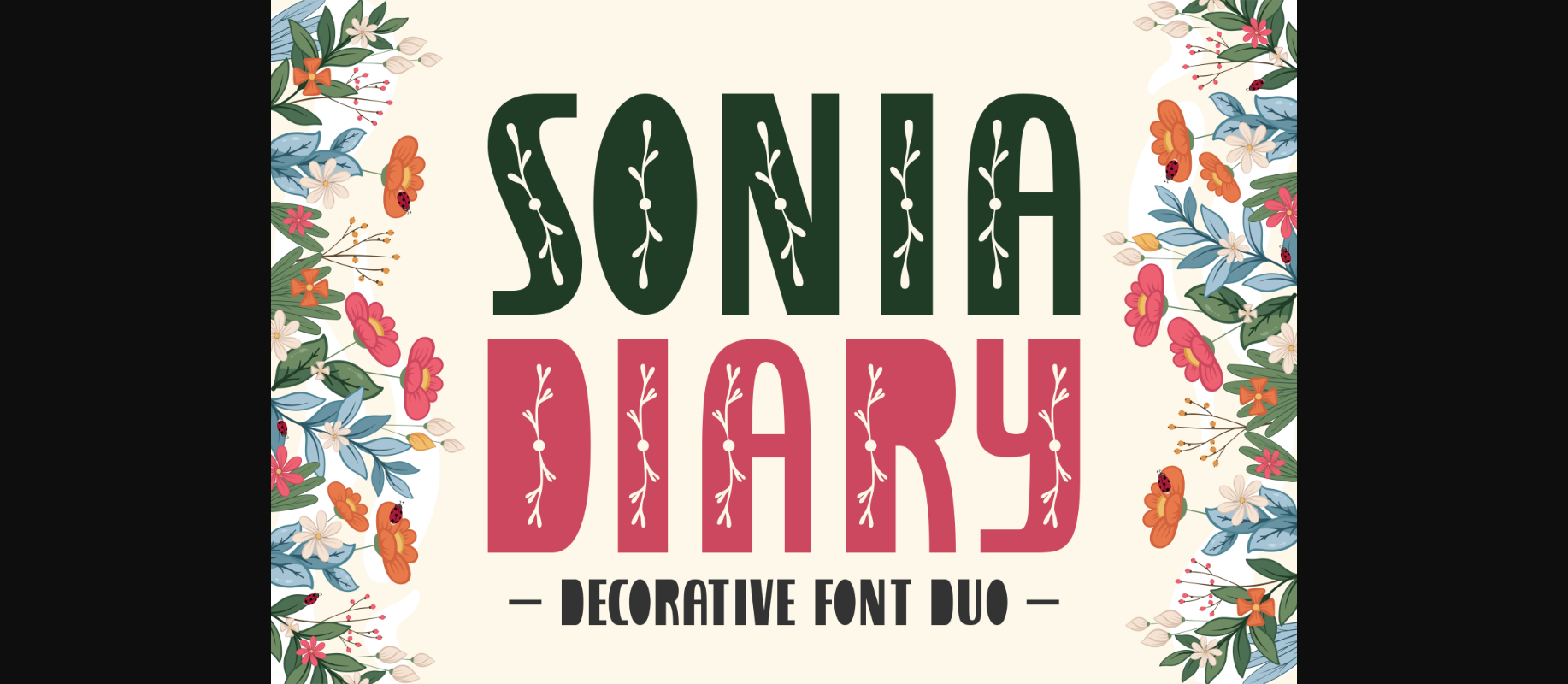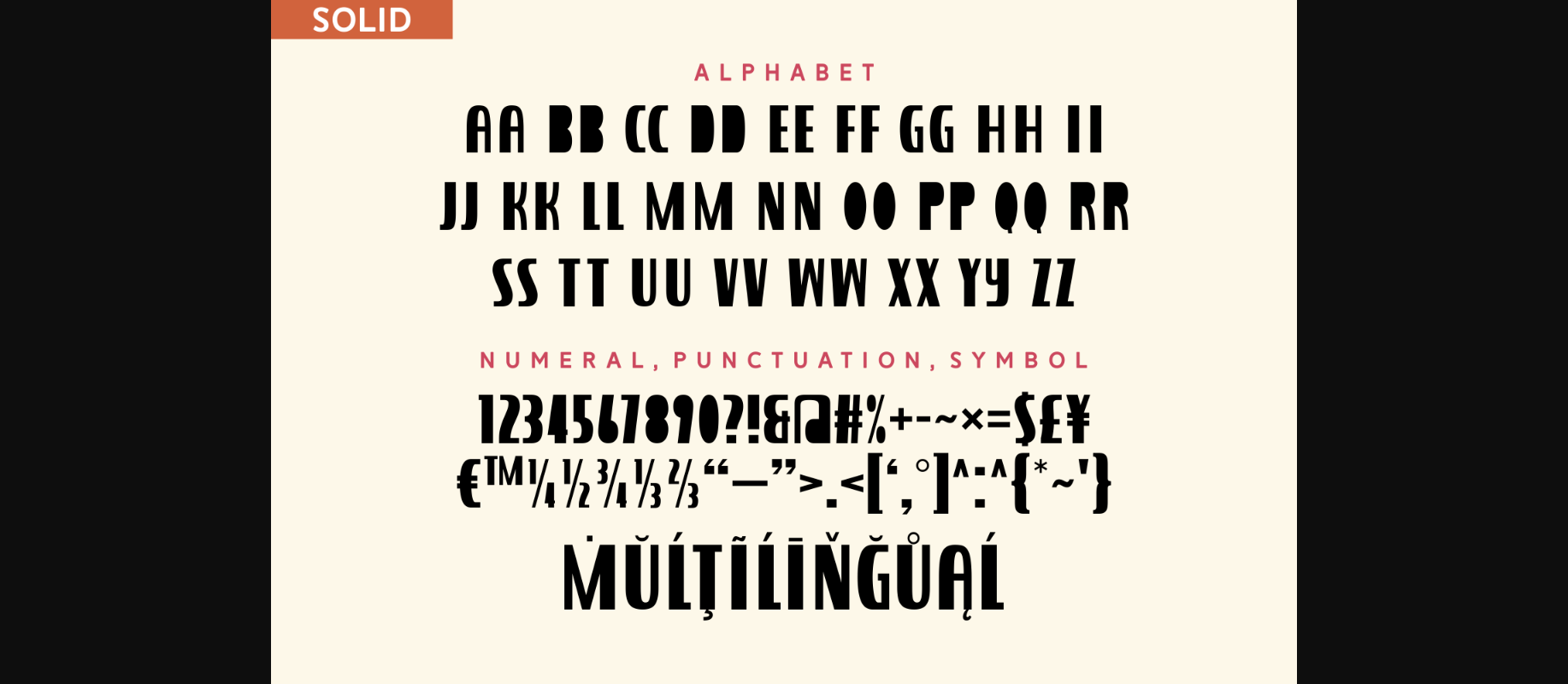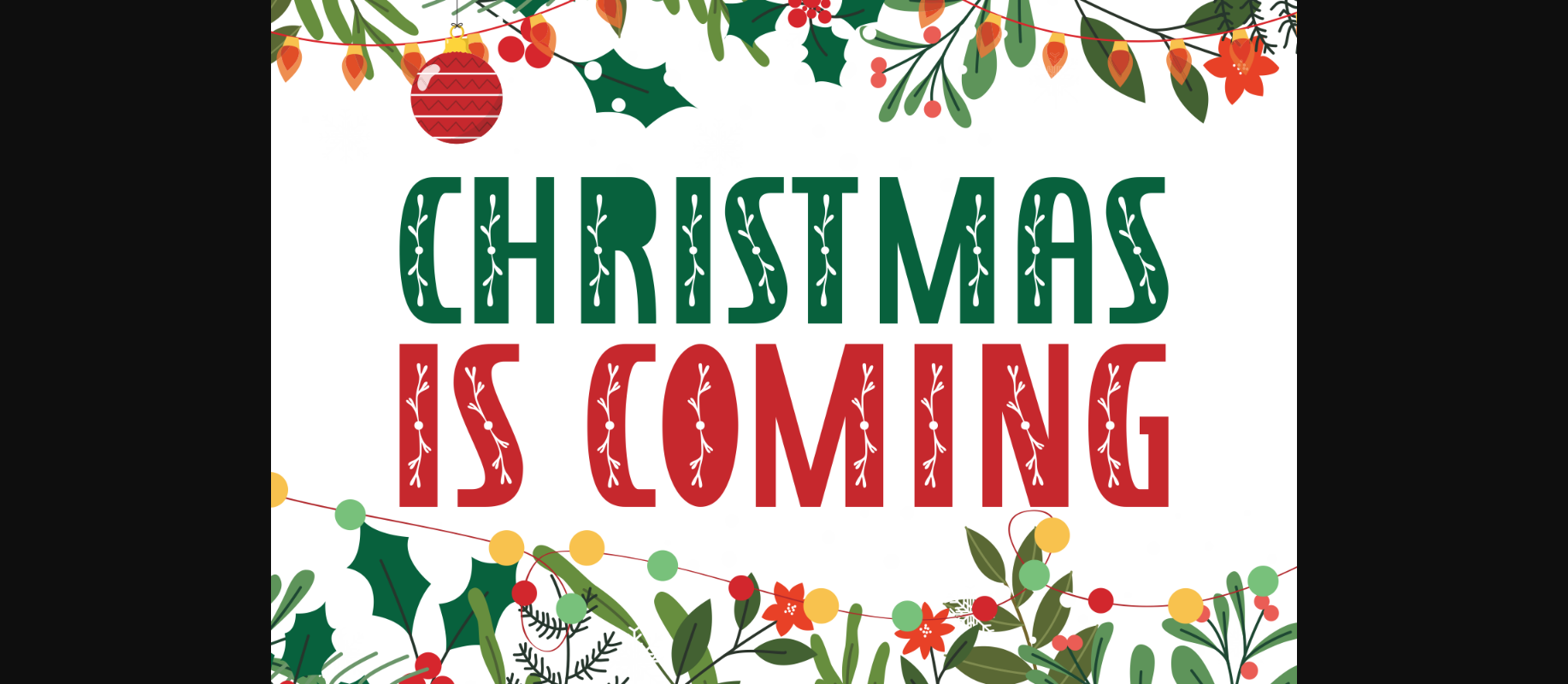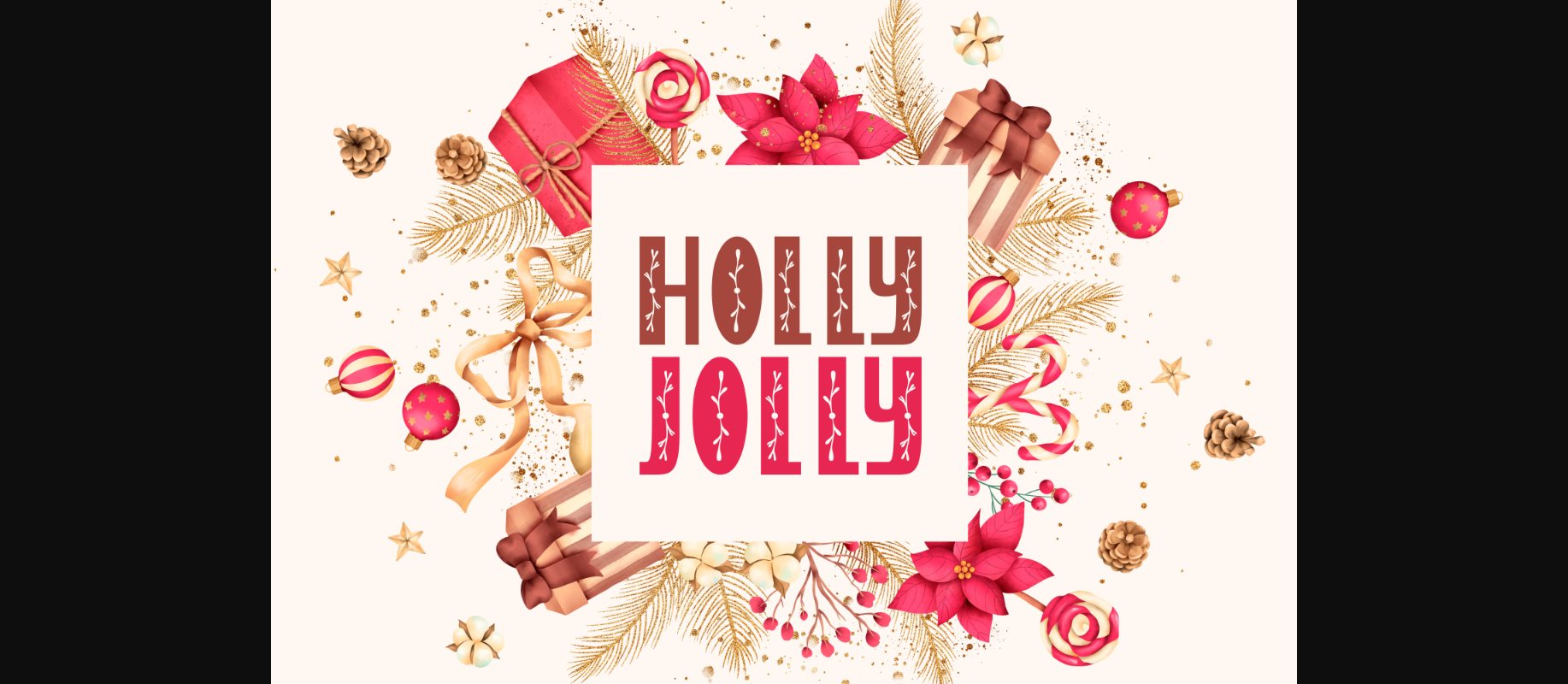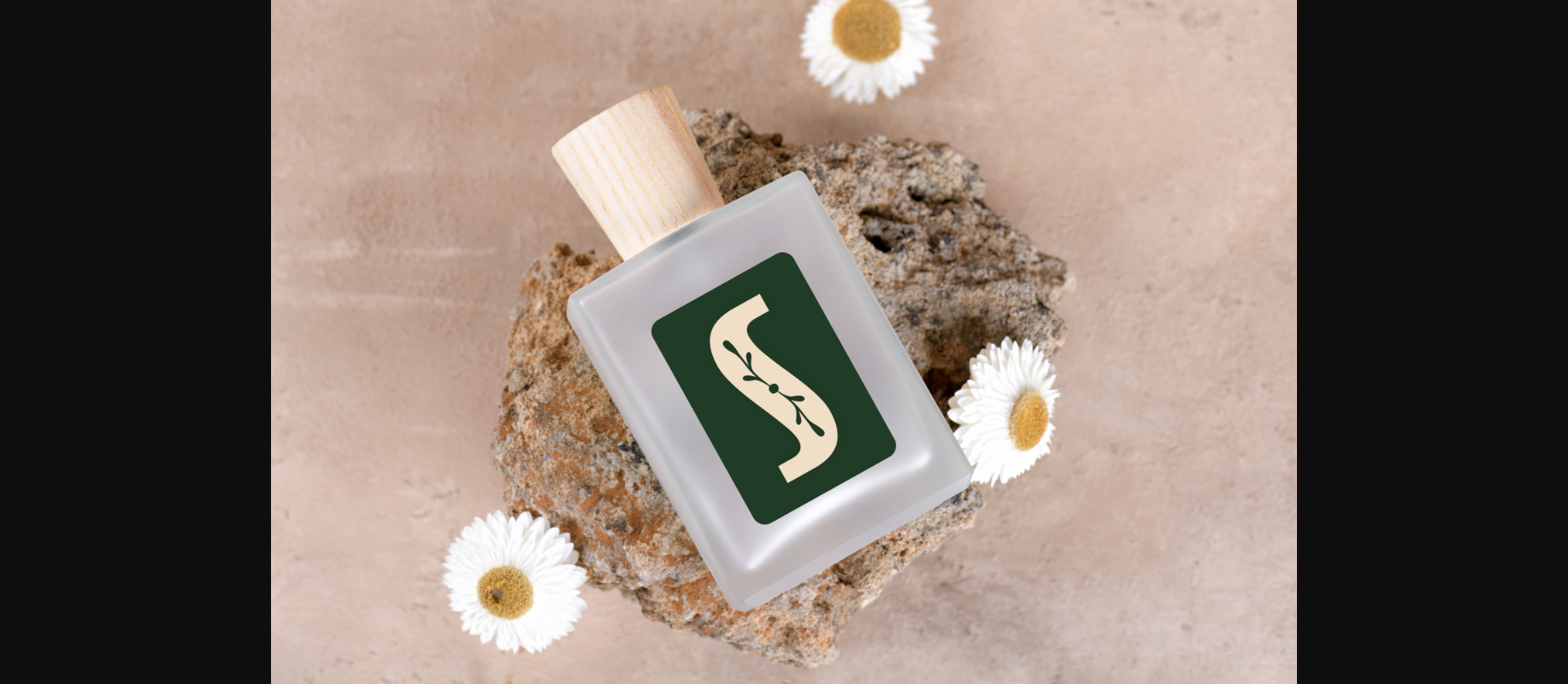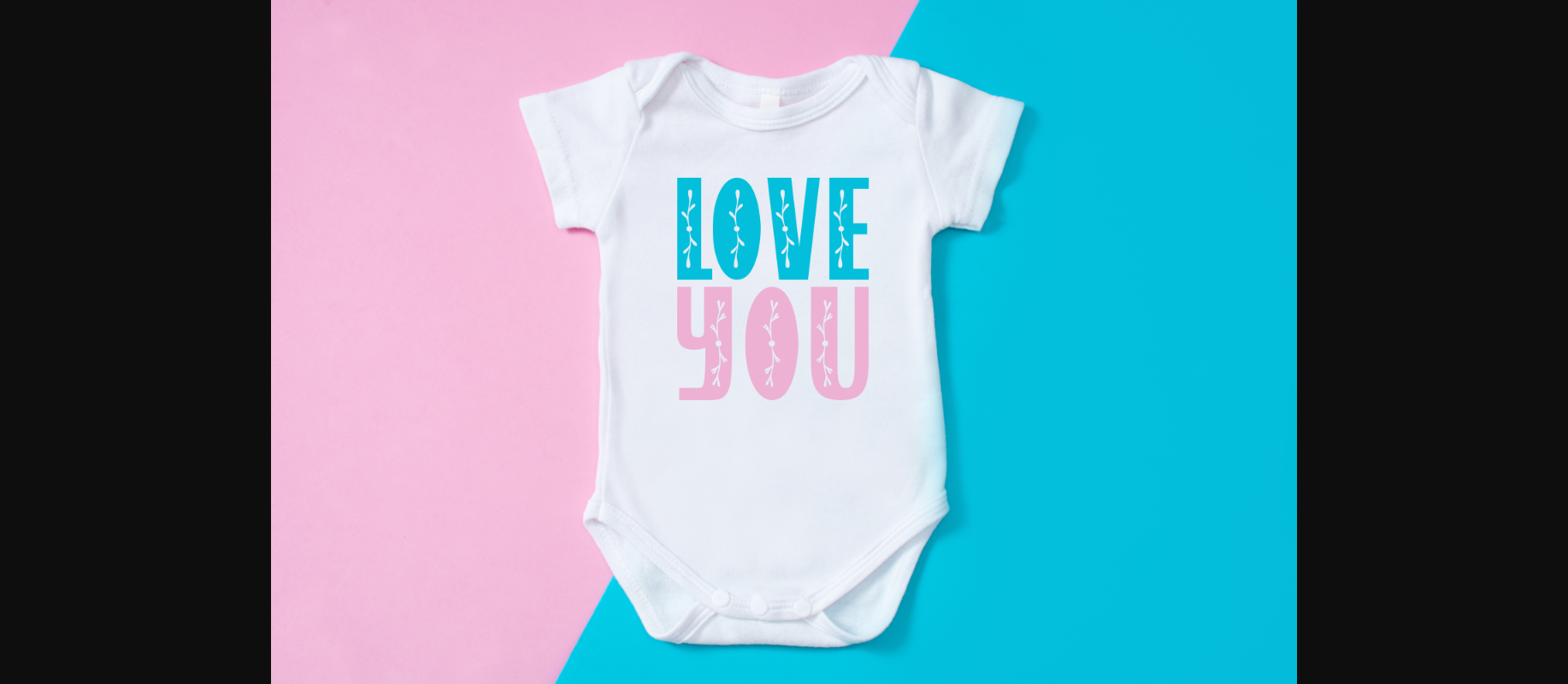
Sonia Diary Font
About Sonia Diary Font
Sonia Diary is a splendid decorative and display duo font perfect for creative minds. The robust display characters perfectly contrast the dainty leafy accents. Use these two fonts together or apart, and create something spectacular!